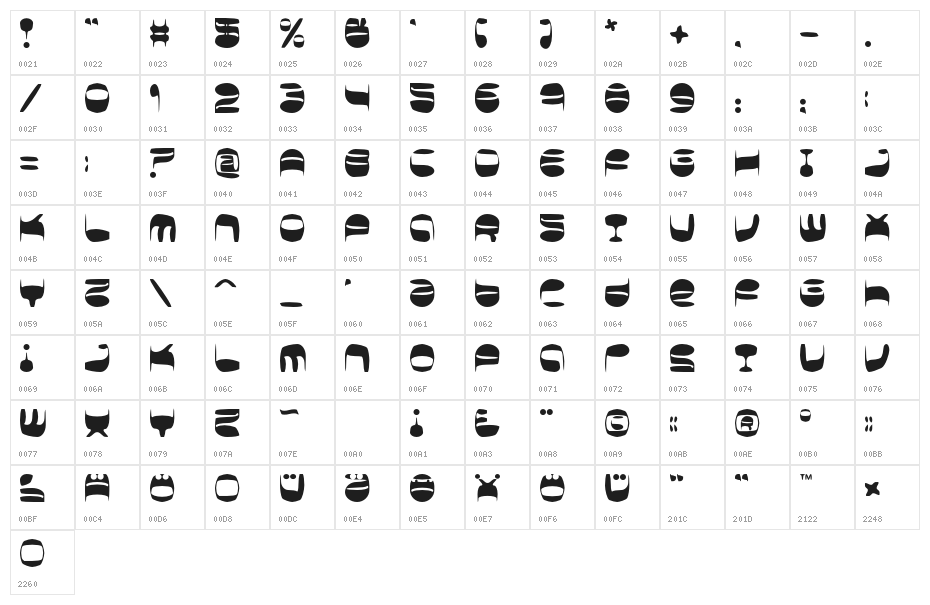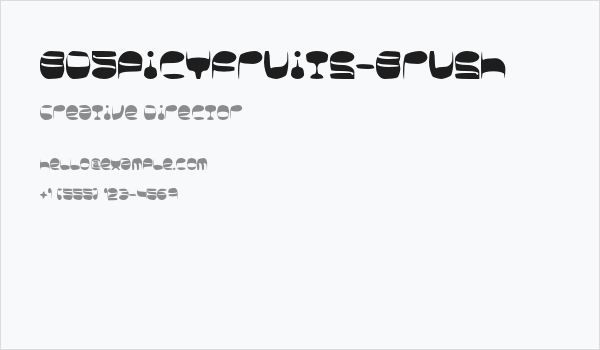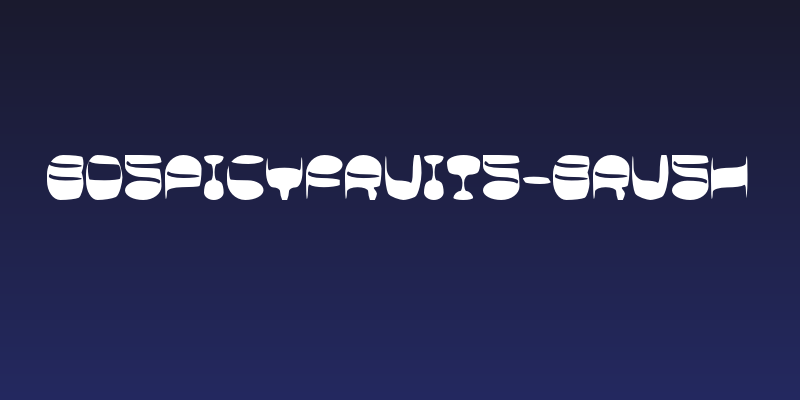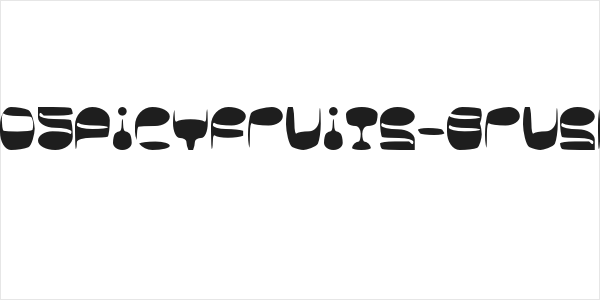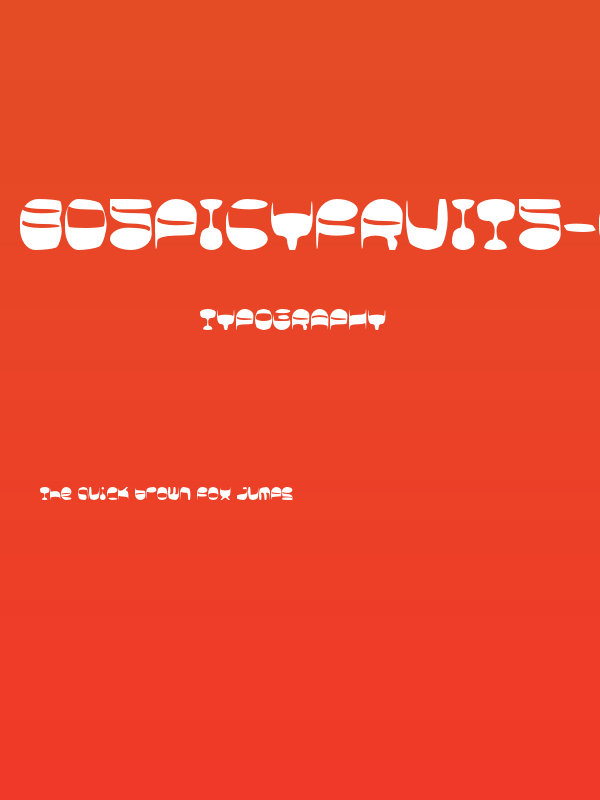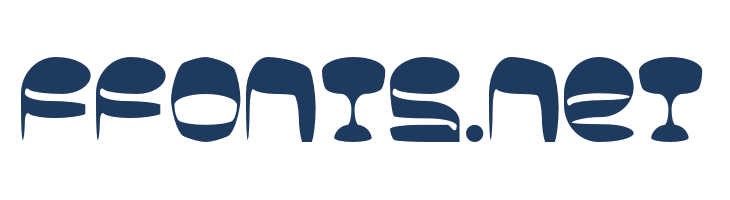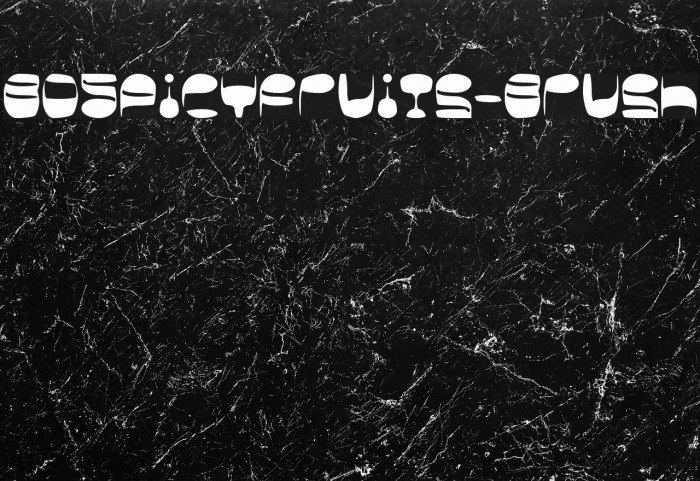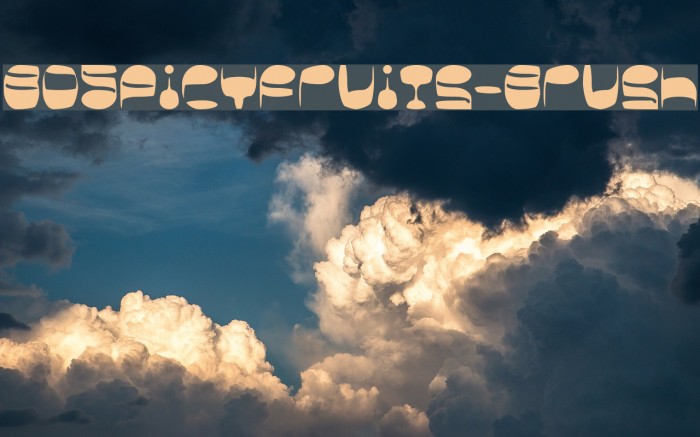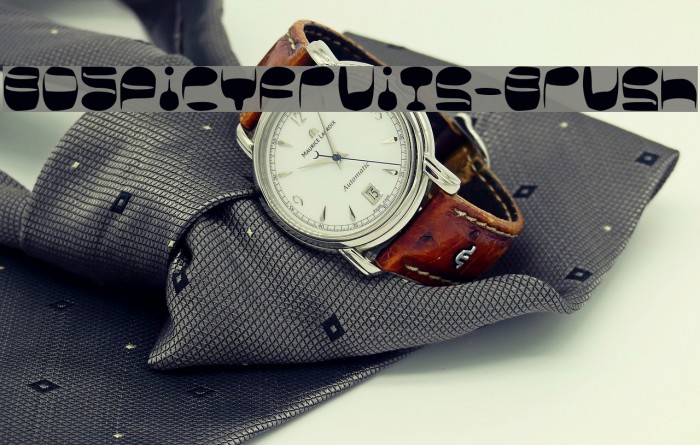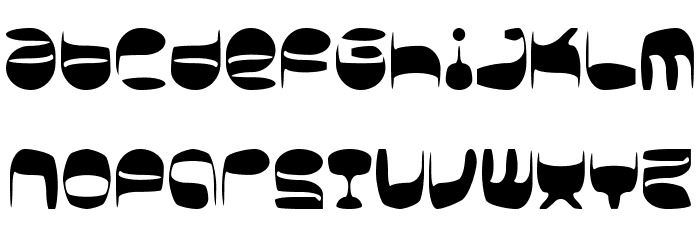
BDSpicyFruits-Brush Font
BDSpicyFruits-Brush Description
This font features a bold and playful design with a brush-like appearance. The characters are thick and rounded, with a unique, organic flow that gives them a lively and dynamic feel. The uppercase and lowercase letters maintain a consistent style, with exaggerated curves and varying stroke widths that add to the font's whimsical nature. The numbers and special characters are equally expressive, making them stand out in any design. This font is ideal for projects that require a fun and energetic vibe.
| Overall Style | Playful, Energetic |
| Proposed Projects | Perfect for children's books, playful branding, posters, and creative packaging. |